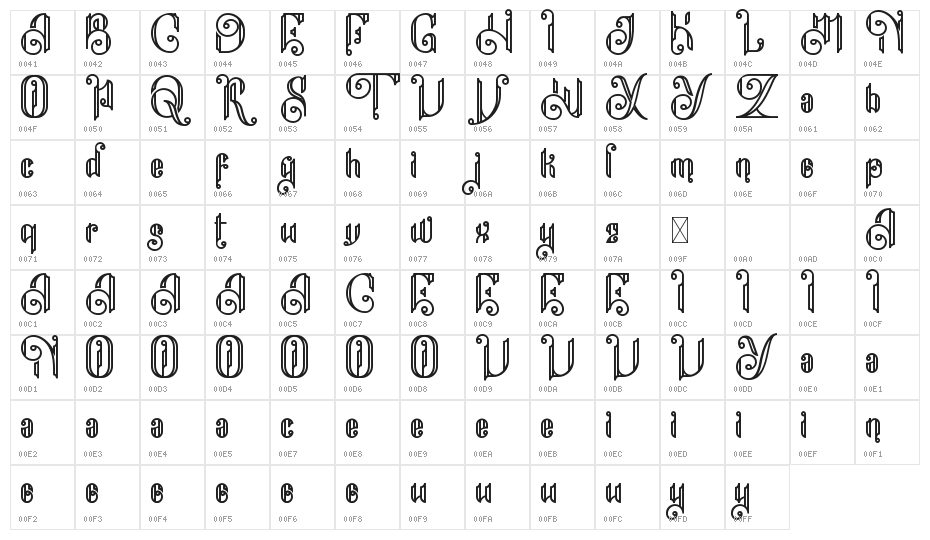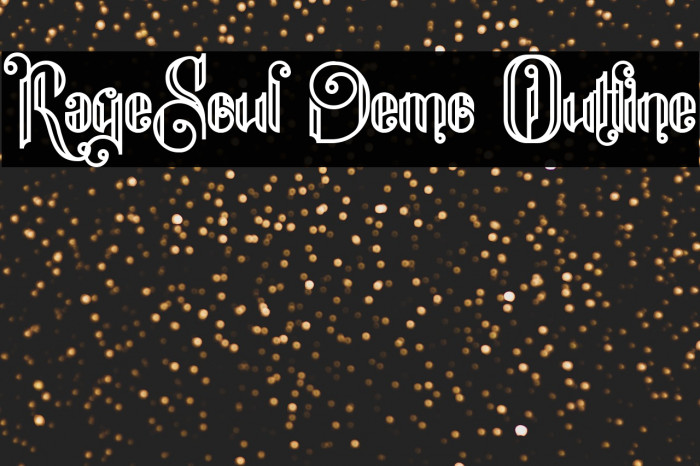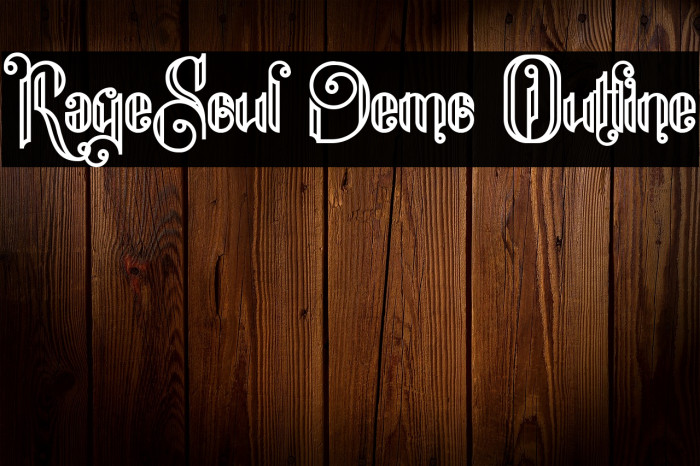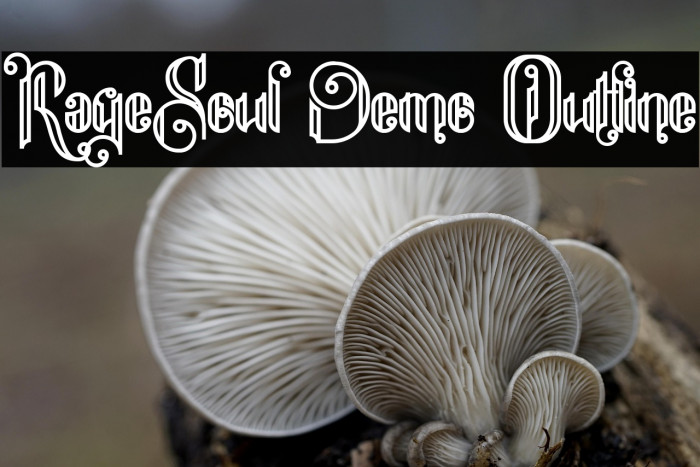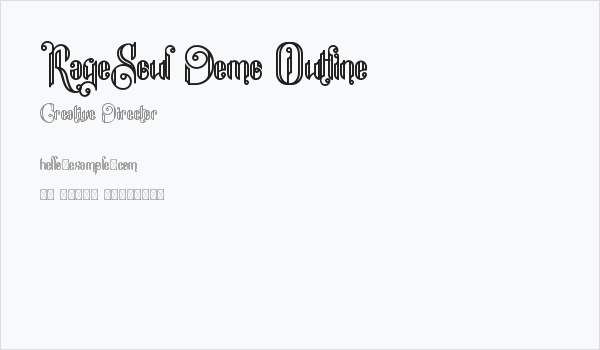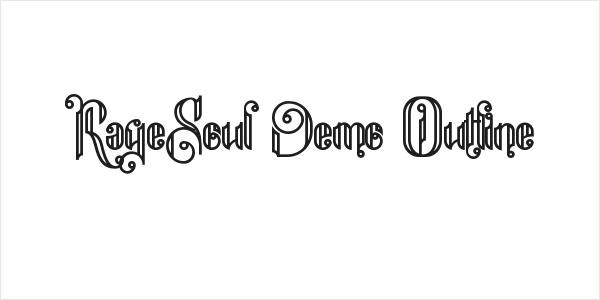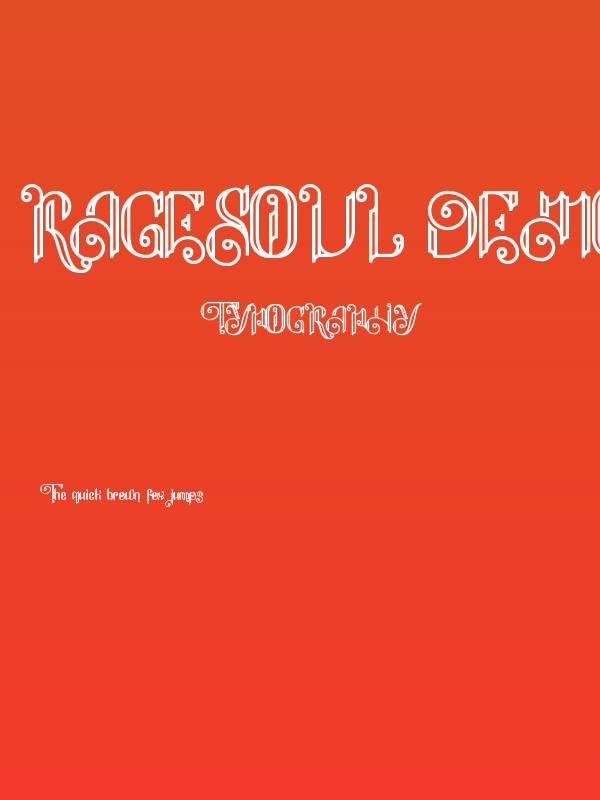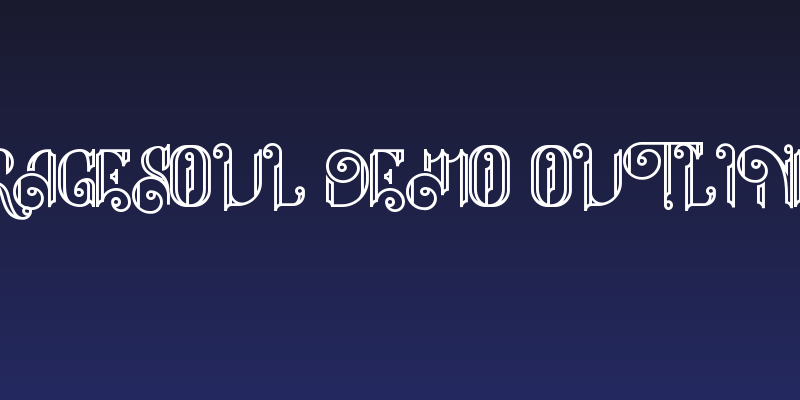
RageSoul Demo Outline Font
RageSoul Demo Outline Description
This font features an intricate and decorative design with an outline style that adds a unique flair to each character. The letters are adorned with elegant swirls and loops, creating a sense of movement and artistic expression. The uppercase and lowercase letters maintain a consistent style, with the uppercase being slightly more elaborate. The numbers and special characters follow the same ornate pattern, ensuring a cohesive look across all elements. This font is ideal for projects that require a bold and artistic statement, offering a blend of modern creativity and vintage charm.